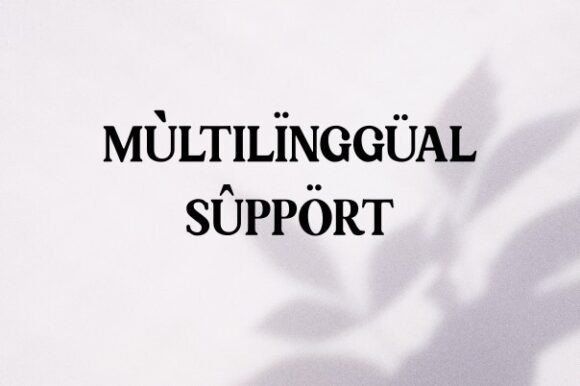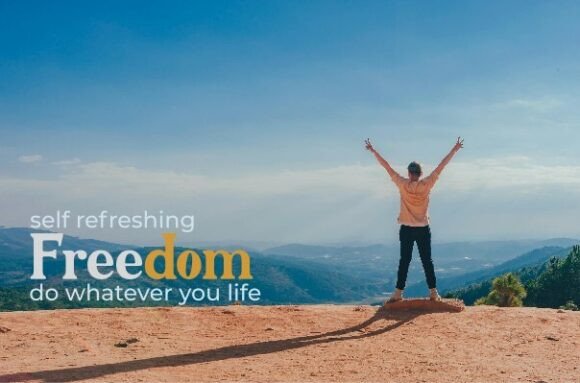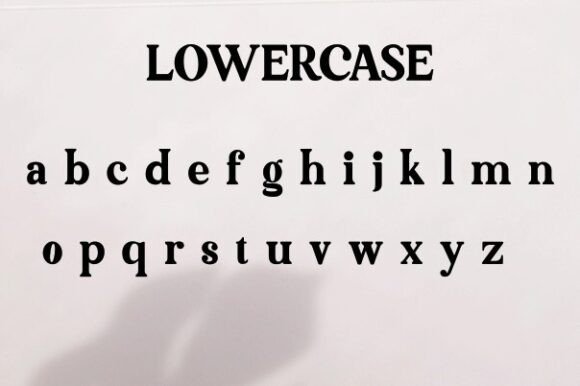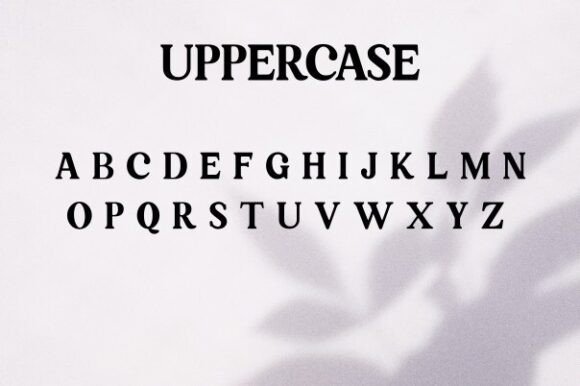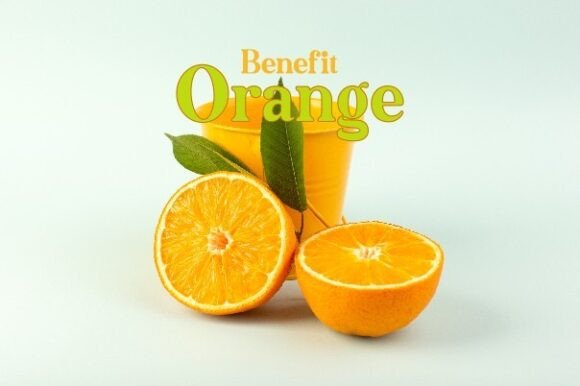
Introduction to Retpack Serif Font
Immerse yourself in the timeless appeal of our Retro Serif typeface.
This font is an ideal choice for producing captivating typographic masterpieces, seamlessly merging class with functionality With its adaptability as a web font, it makes crafting extraordinary digital projects effortless.
Retpack Serif Font offers exceptional quality and versatility, making it a valuable addition to your design toolkit. Whether you’re creating for personal projects or commercial use, Retpack Serif Font delivers professional results.